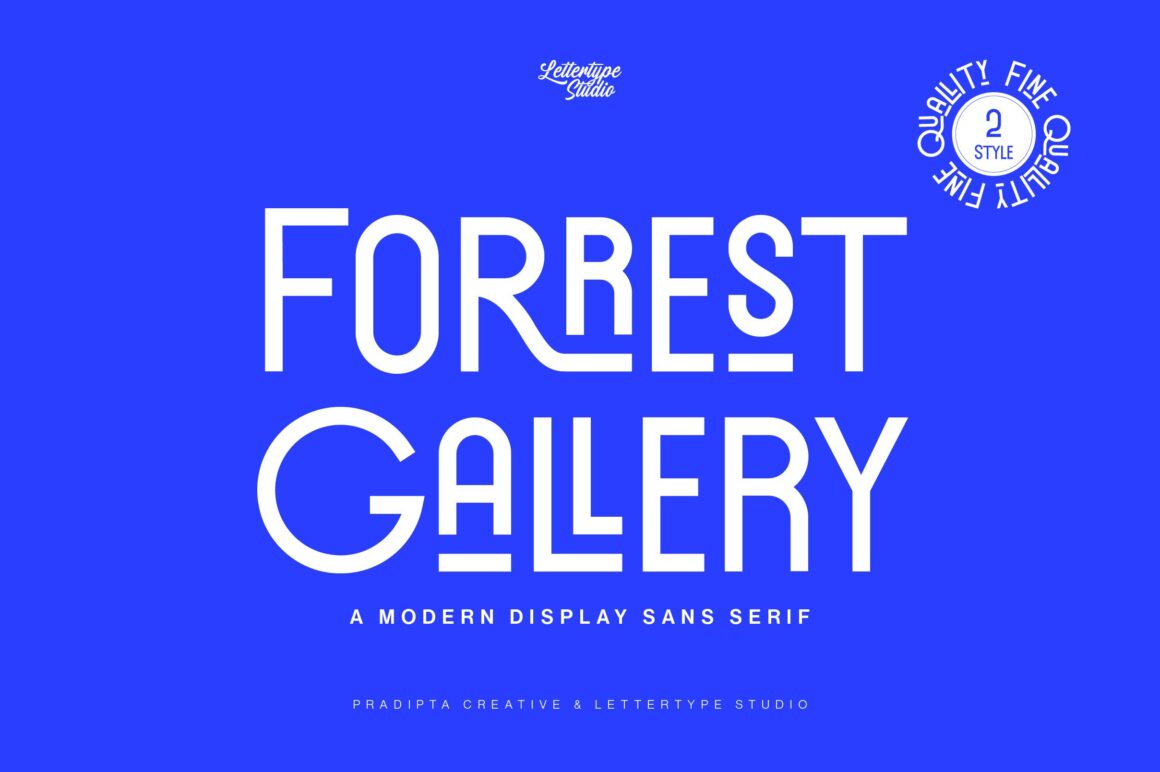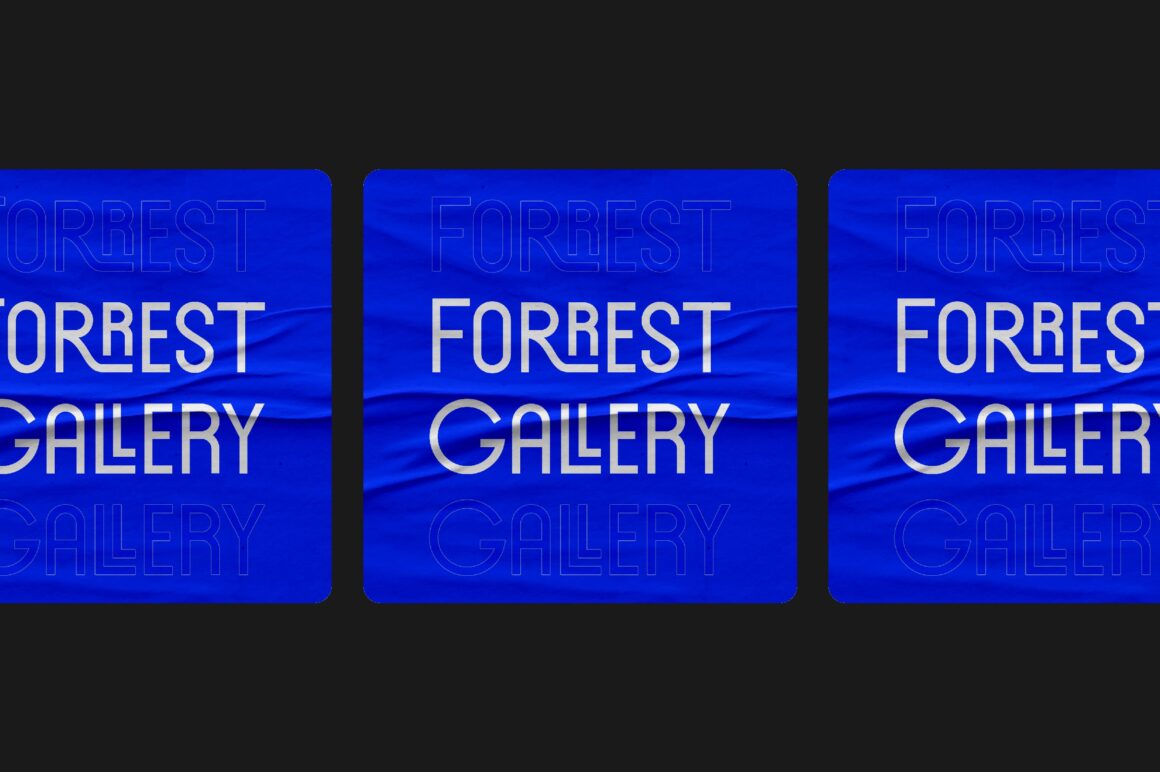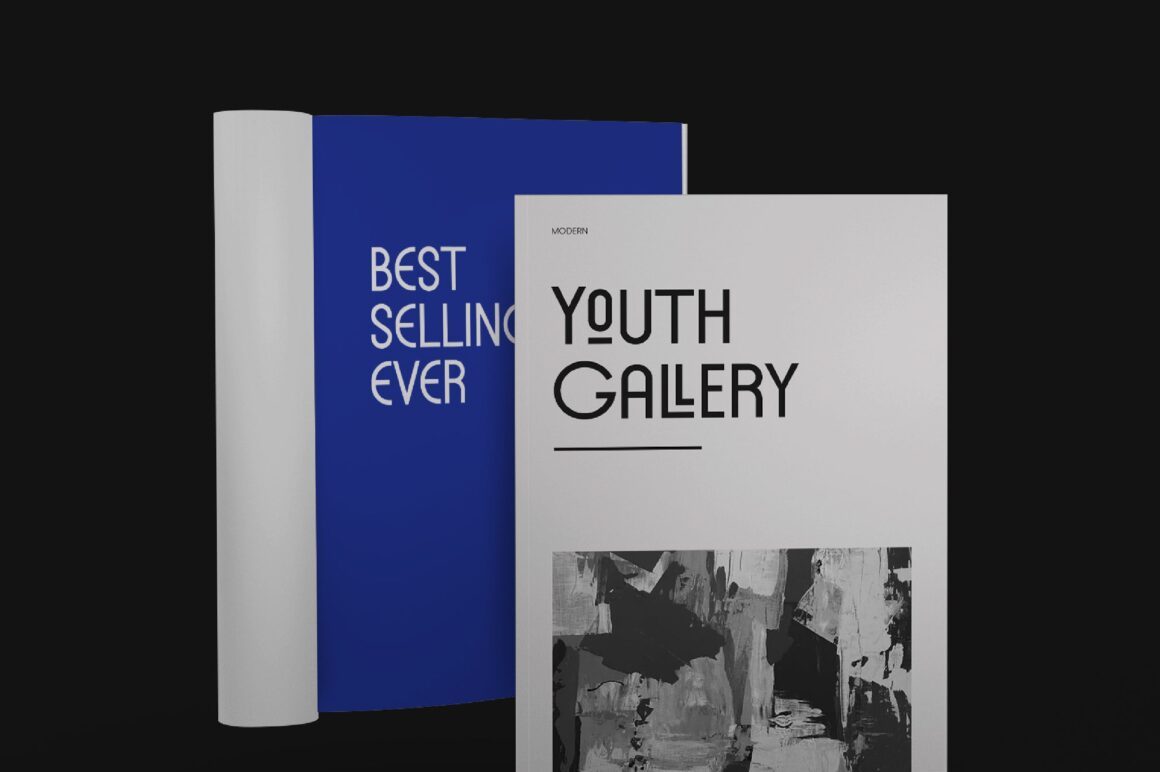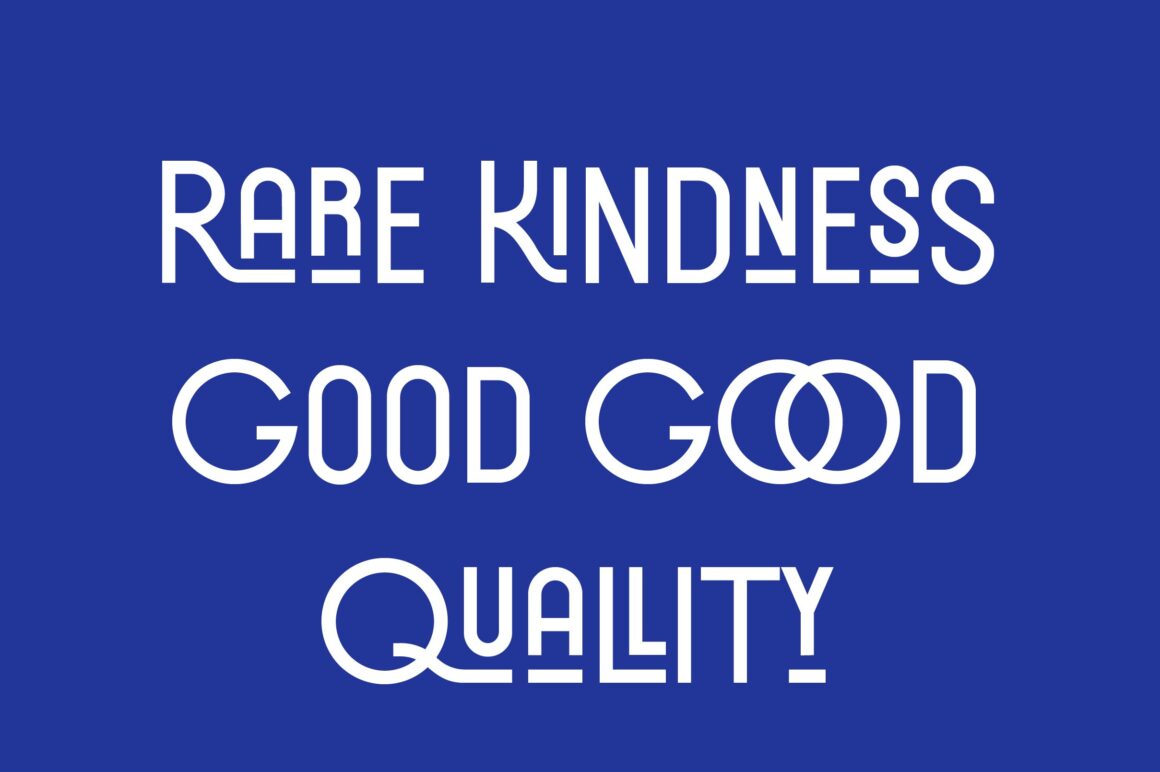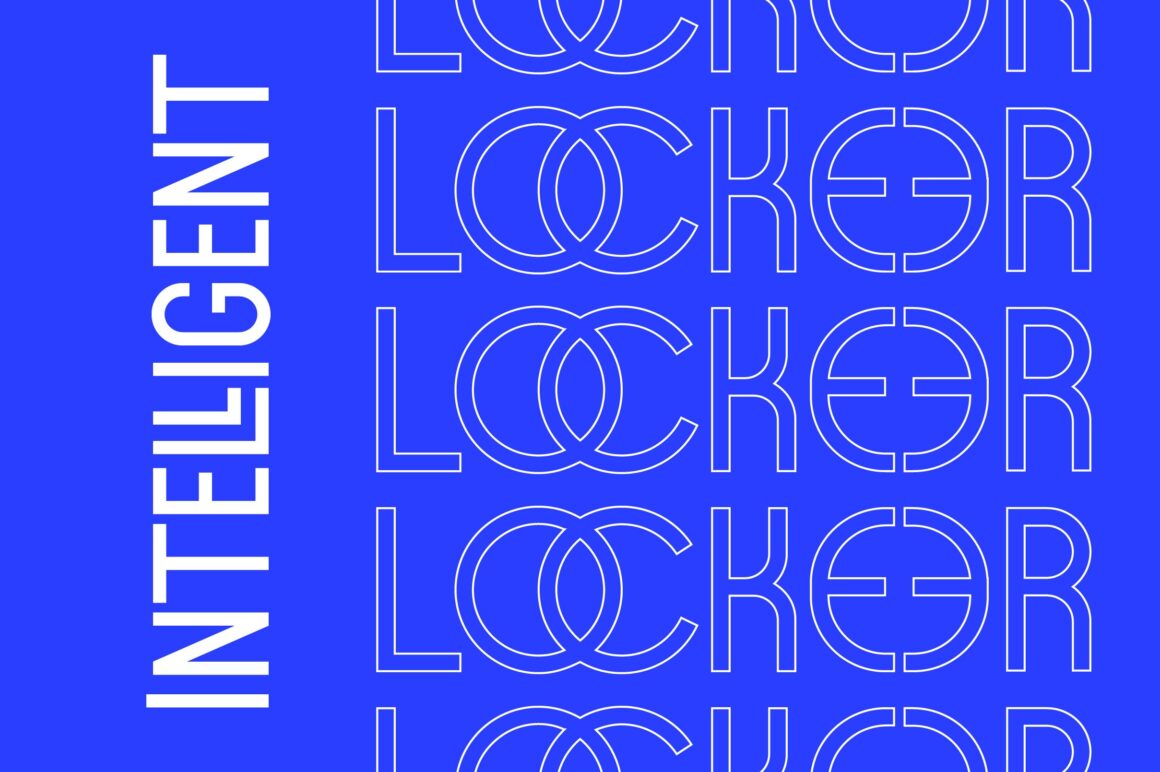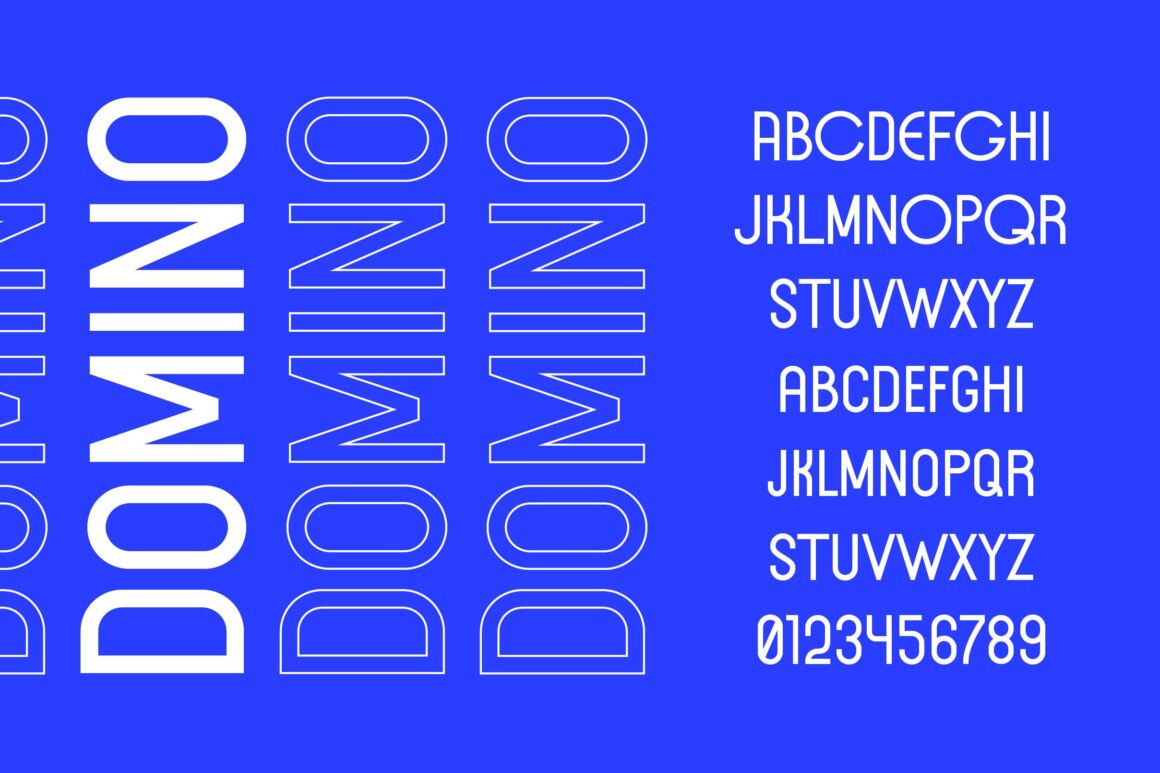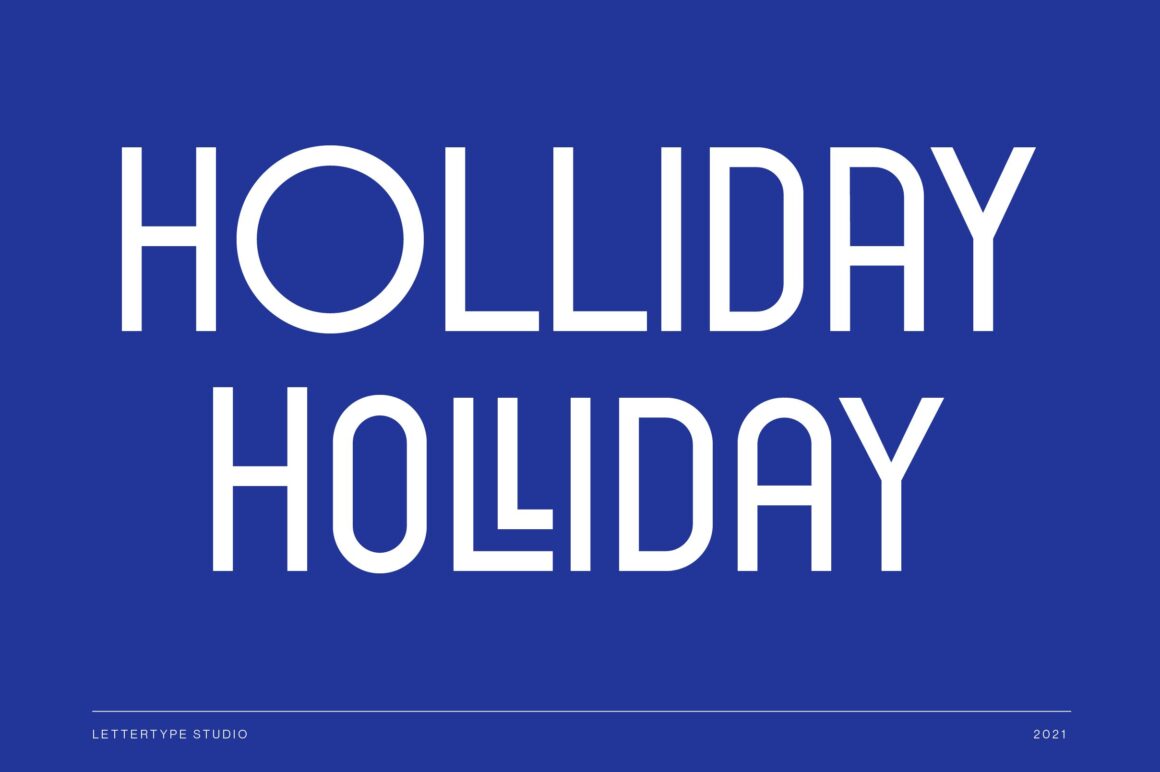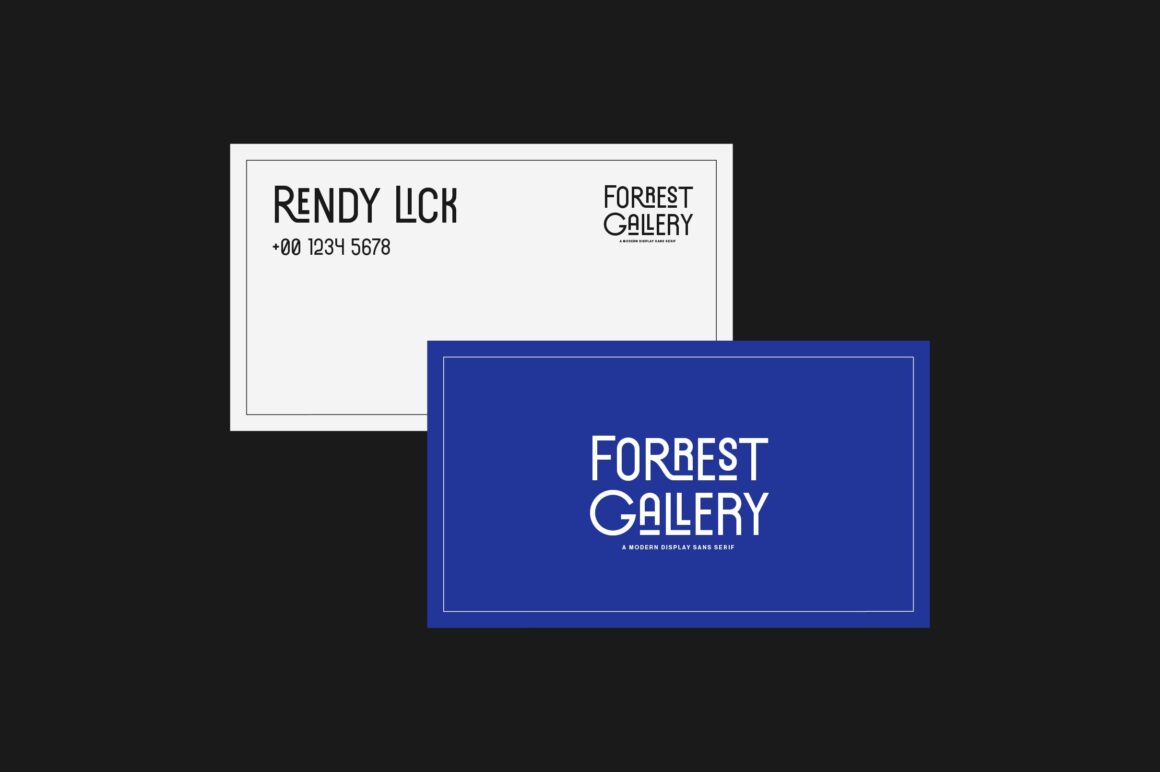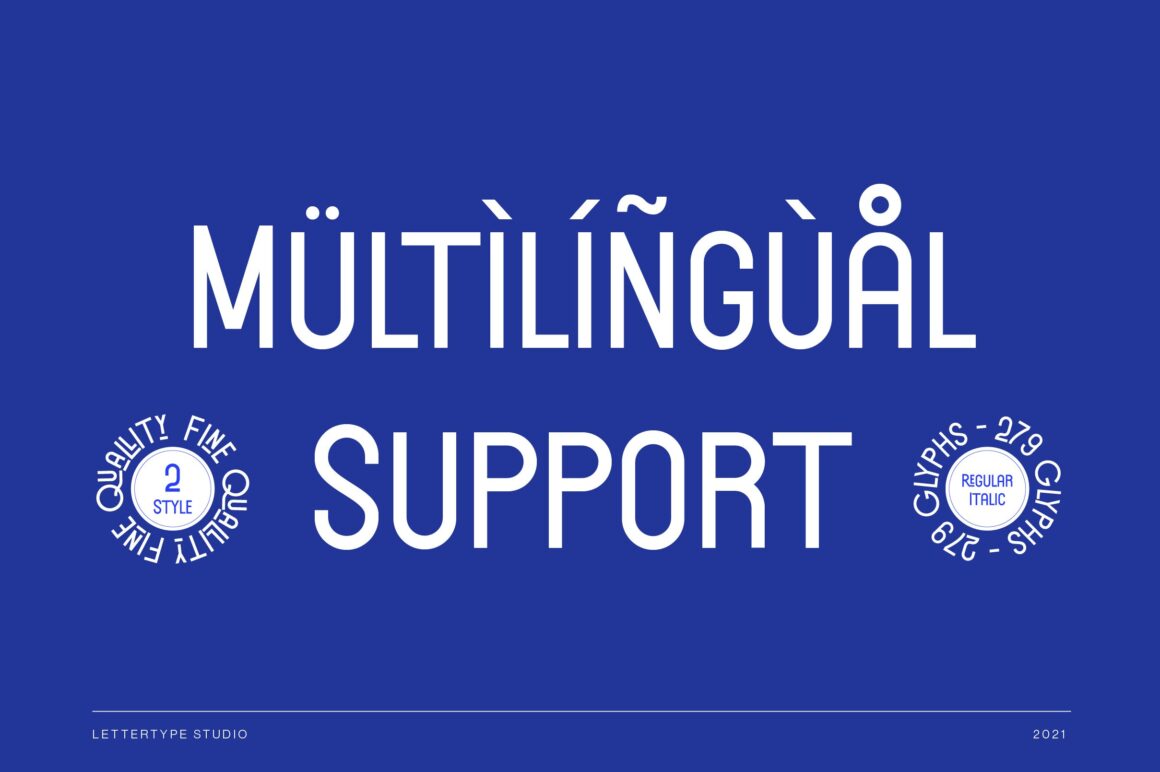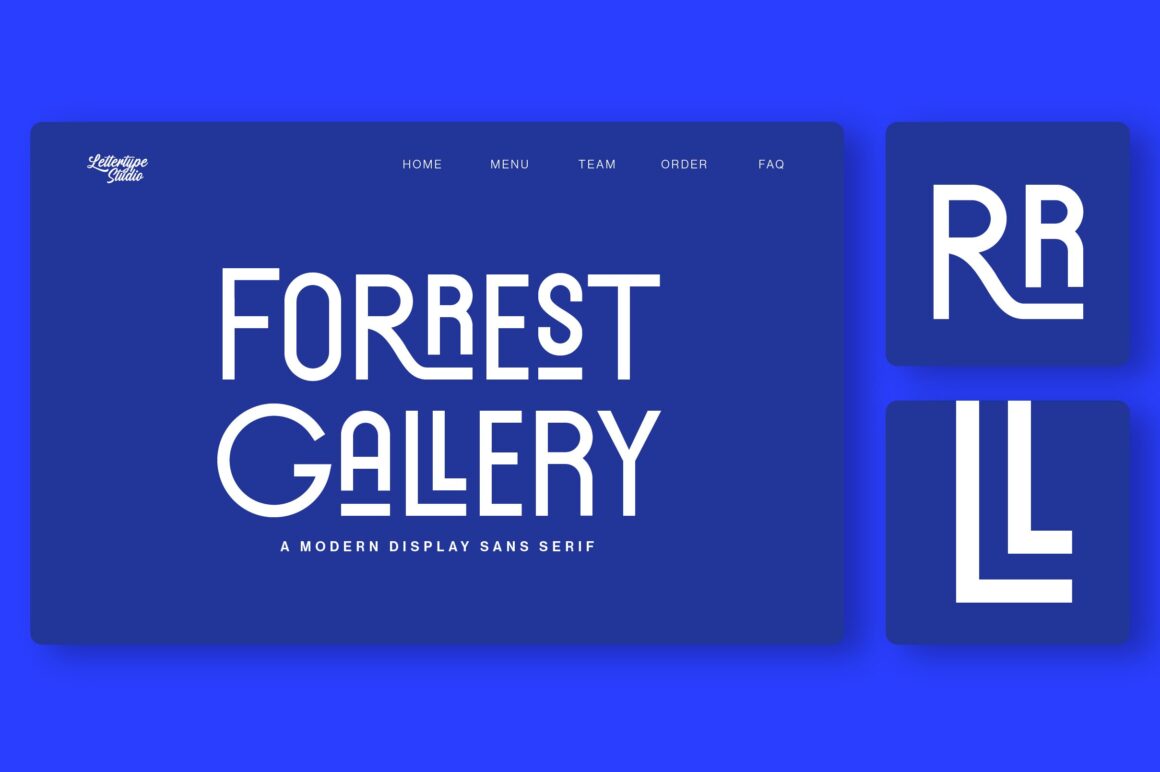
Modern Display Sans Serif
Forrest Gallery
Forrest Gallery Italic
Forrest Gallery is a modern display sans serif font family crafted with clean lines and strong character. Featuring two stylesβ€”Regular and Italicβ€”each with 279 glyphs, this typeface is designed for versatility and fine quality across all your creative projects.
Perfect for logos, branding, signage, magazines, brochures, apparel, and posters, Forrest Gallery helps your designs stand out with a sleek and contemporary look. Built as a bold and professional display sans serif, it combines style and readability, making it a powerful choice for modern branding.
Forrest Gallery Features:
• 2 Styles
• Upright & Oblique
• 28 Stylistic Ligature
• 169+ Languages Supports